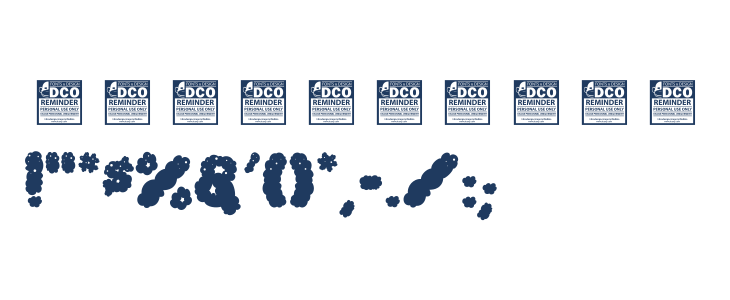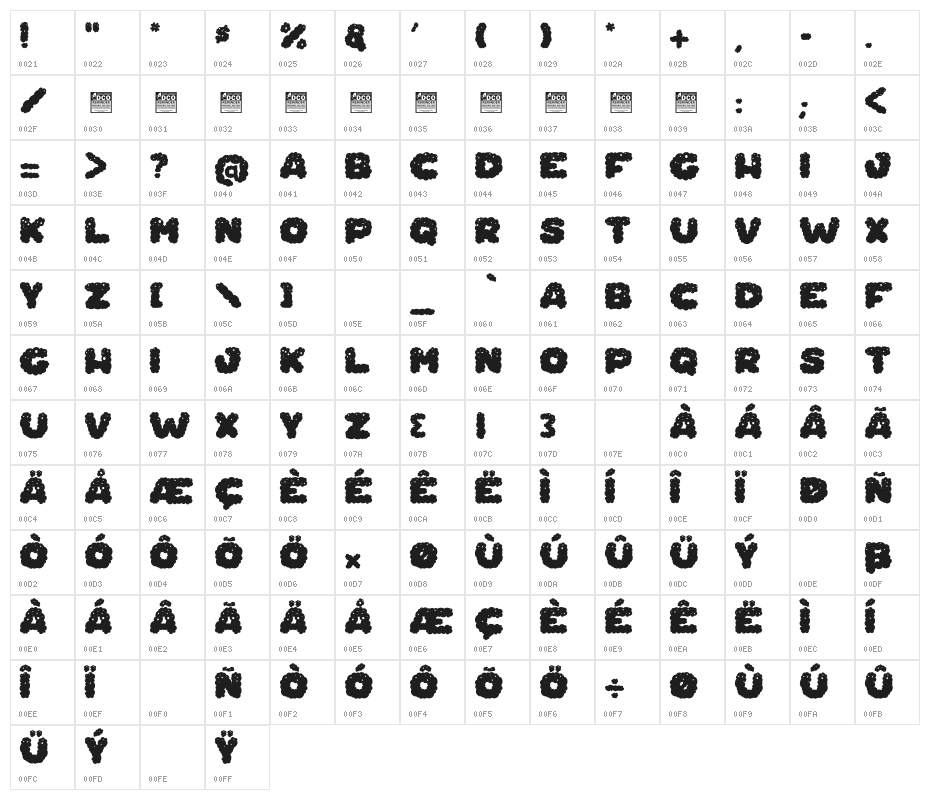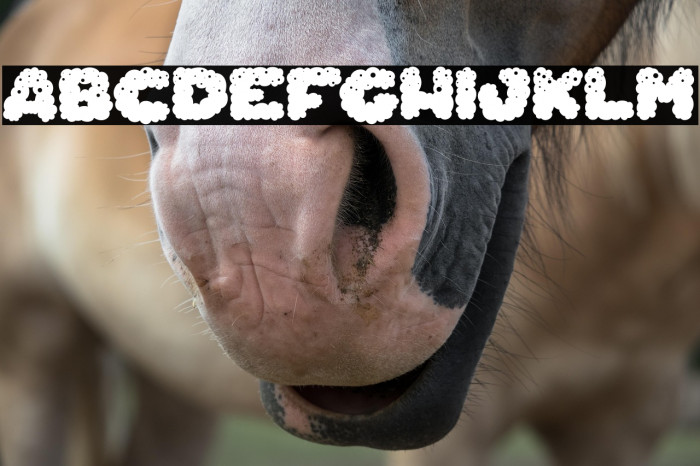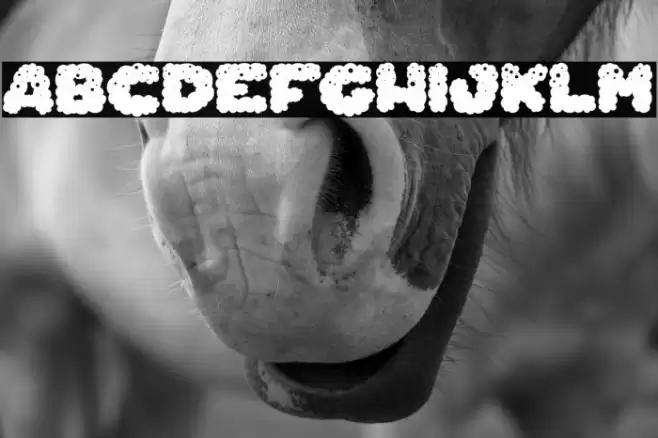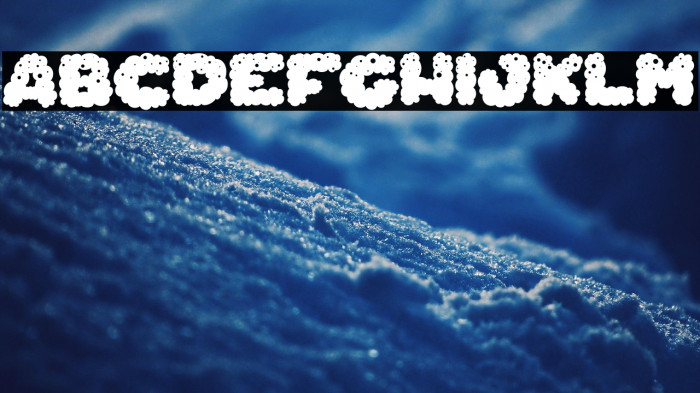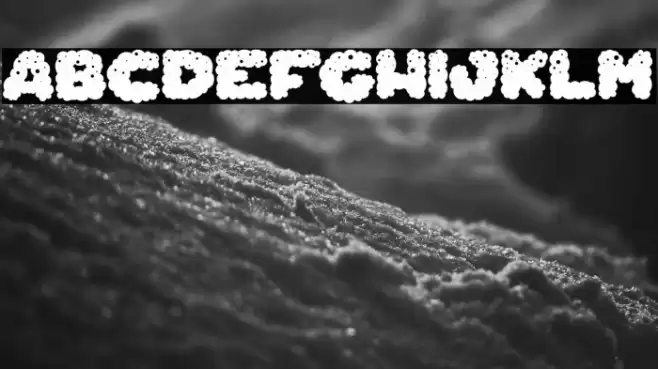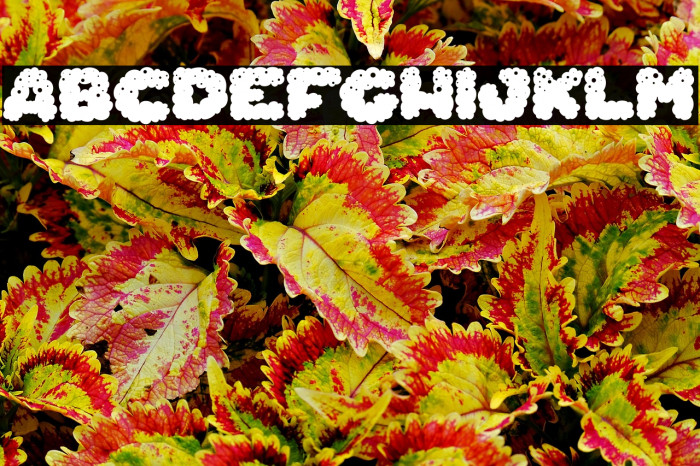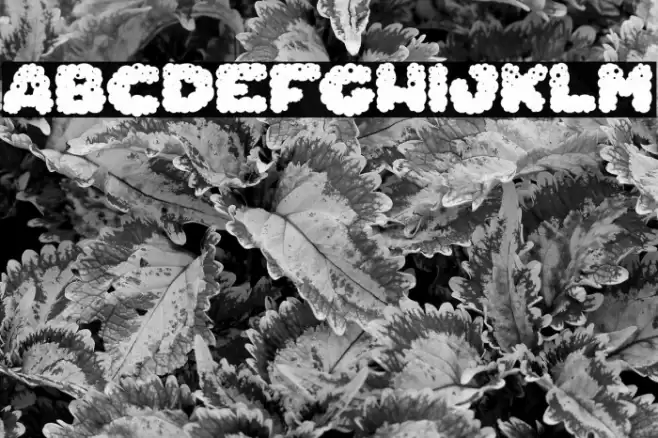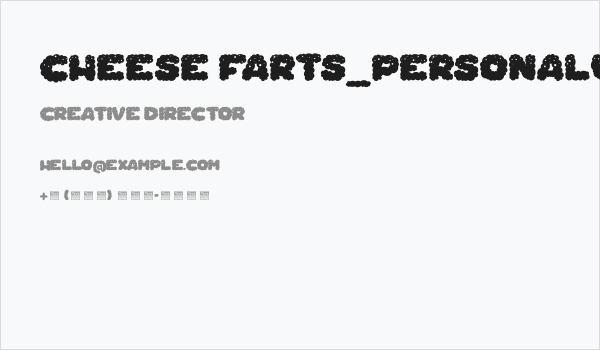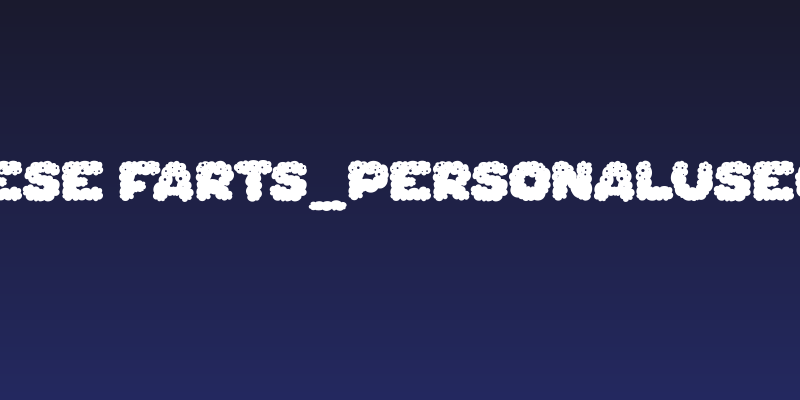
Cheese Farts_PersonalUseOnly Font
Cheese Farts_PersonalUseOnly Description
This playful and whimsical font features bold, rounded characters that resemble fluffy clouds or bubbly shapes. Each letter is crafted with a consistent thickness, giving it a cohesive and uniform appearance. The font's unique style is characterized by its decorative and fun elements, making it stand out in any design. The characters are well-spaced, ensuring readability while maintaining their quirky charm. This font is perfect for projects that require a lighthearted and creative touch, such as children's books, playful branding, or event invitations. Its distinctive style captures attention and adds a sense of fun to any text.
| Proposed Projects | Ideal for children's books, playful branding, event invitations, and creative posters. |